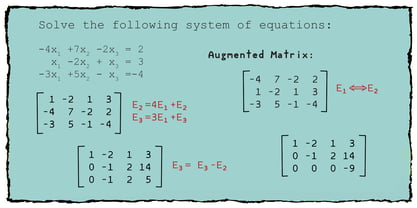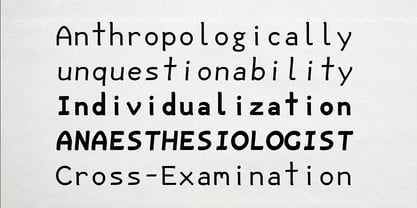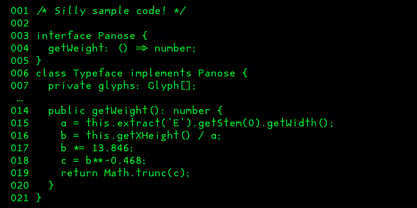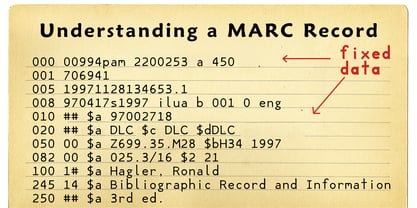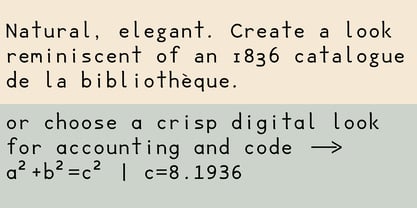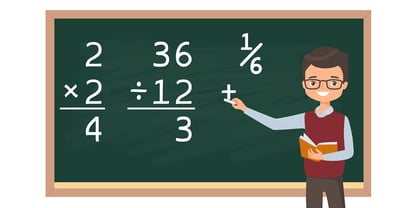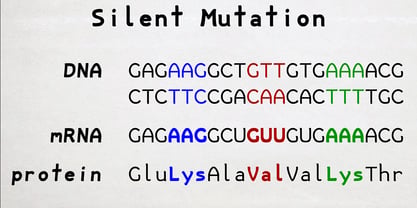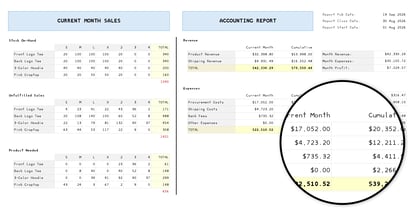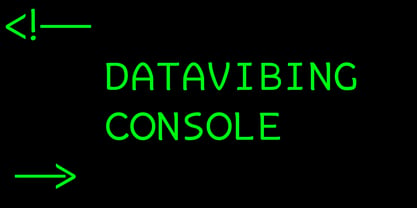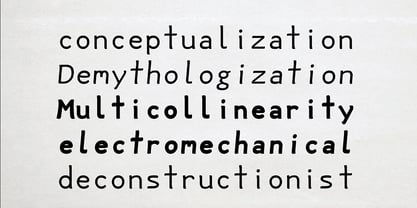
Datavibing Console
by Second Circle Font Foundry
The Datavibing Console Font Family was designed by Gregory Stevens and published by Second Circle Font Foundry. Datavibing Console contains 4 styles and family package options. More about this family
Datavibing Console is a fixed width font with a natural, organic hand-written feel, because sometimes you want a monospace typeface that feels casual and human. Fixed width fonts are extremely useful in situations where you need columns to line up neatly, for example: - Programming Code - Accounting and Finance - Teaching Arithmetic - Catalogs and Bookkeeping - Matrix Algebra Most fixed width fonts have a rigid and artificial feel to them, reminiscent of old typewriters or computers from the 1900’s. Datavibing Console gives you an alternative. It features soft pen-like strokes and slight asymmetries that give the impression of hand-printed letters, and a large collection of custom ligatures tailored specifically to enhance the readability of mathematical expressions and computer code. Whether you are a teacher creating handouts with the solutions to math problems, or a student who wants your HTML or TypeScript code to look a little less cold and soulless, Datavibing Console is the natural human font for all of your numerical and technical needs.